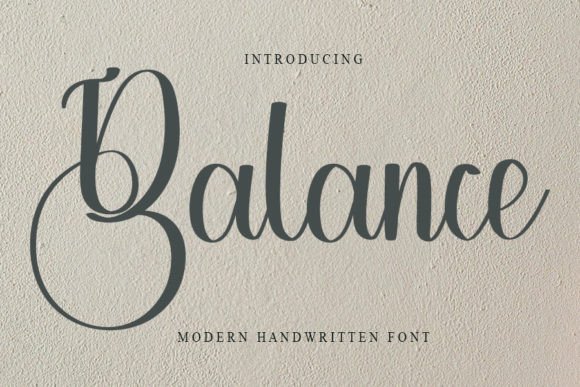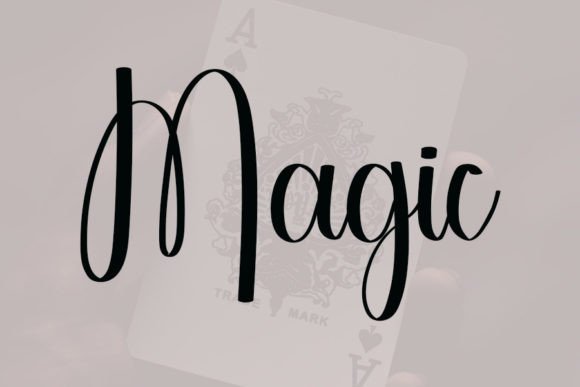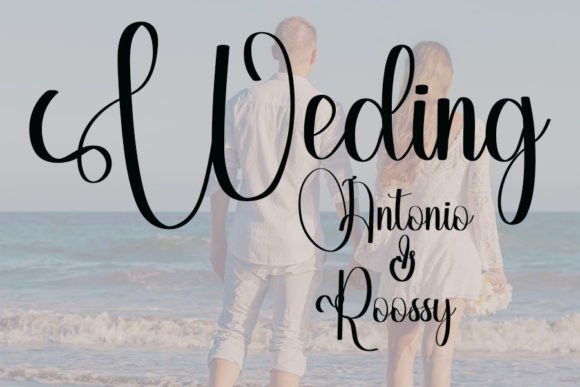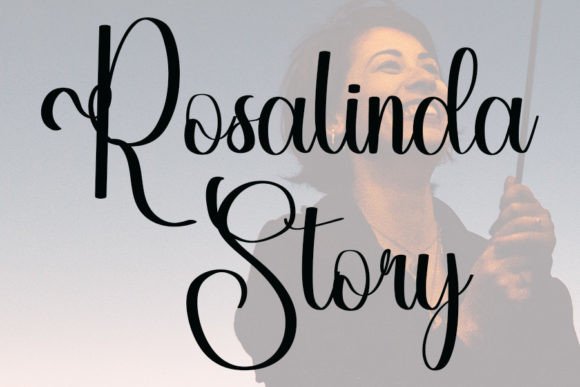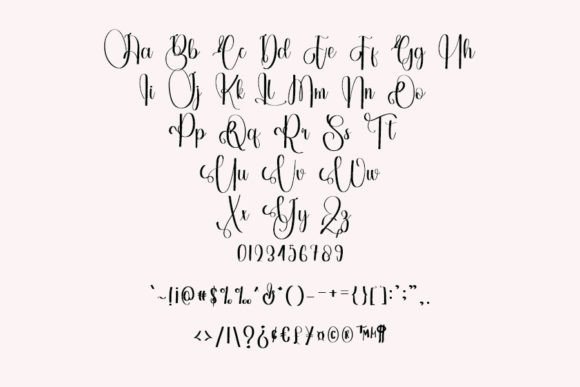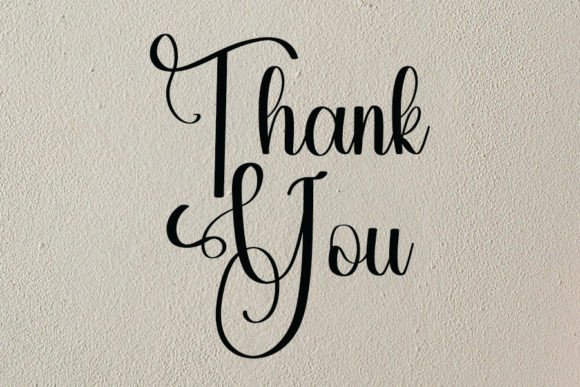
Balance Font
About Balance Font
Balance is a charming handwritten font, intricately crafted to secure its position as a beloved favorite. With a delicate equilibrium between classic calligraphy influences and a contemporary, fresh vibe, Balance stands out as a versatile choice that promises to enrich your font library and bring vitality to all your creative projects.
The friendliness and approachability of Balance are immediately evident, creating an inviting and warm ambiance. Each letter is meticulously designed, striking a perfect balance between timeless calligraphic elements and a modern aesthetic. This unique fusion ensures that Balance not only exudes a sense of tradition but also aligns with current design trends, making it a font that effortlessly blends the best of both worlds.
Incorporating Balance into your font library is akin to acquiring a timeless yet modern creative tool. Its versatility enables seamless integration into a variety of design projects, from sophisticated branding and elegant invitations to dynamic digital content. Balance transforms from a font into a trusted companion, enhancing the visual appeal of your work with its distinctive and friendly personality.
Adding Balance to your designs introduces a touch of creativity and sophistication. Its handwritten charm not only adds a personal dimension to your projects but also communicates a sense of elegance and freshness. Whether you’re working on refined designs or projects that demand a contemporary flair, Balance rises to the occasion with grace and style.
In summary, Balance transcends its role as a mere font; it’s a friendly and stylish design asset that breathes life into your creative endeavors. Embrace its classic yet fresh appeal, integrate it into your font library, and witness how it transforms your projects, infusing them with vibrancy and a harmonious touch.